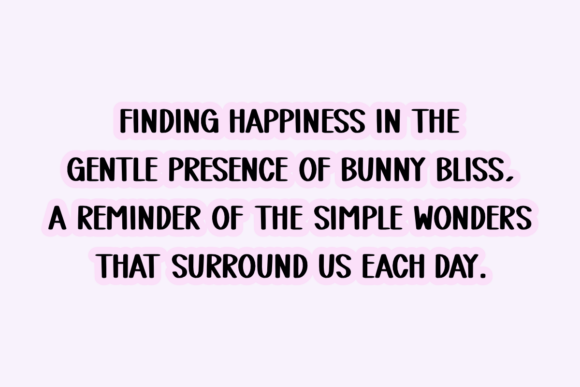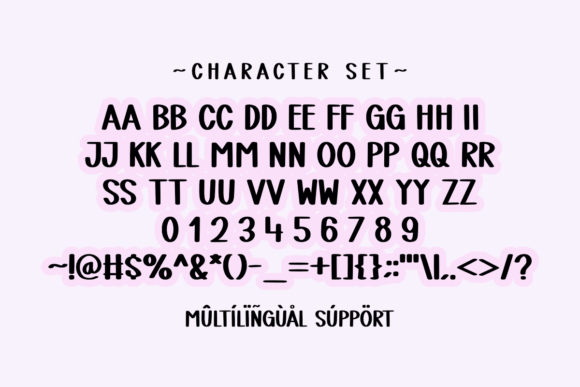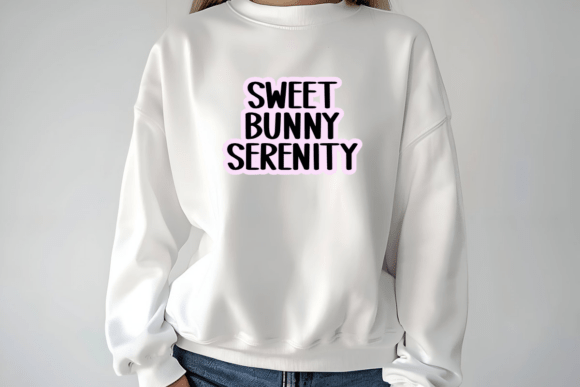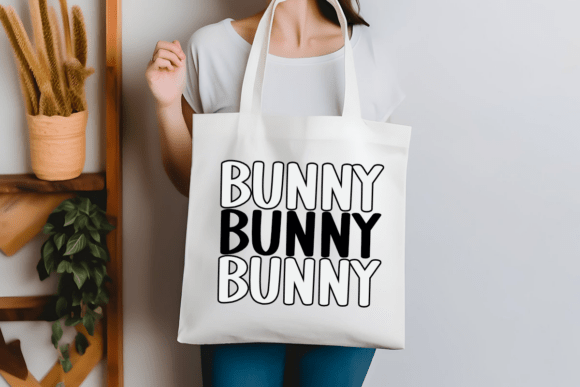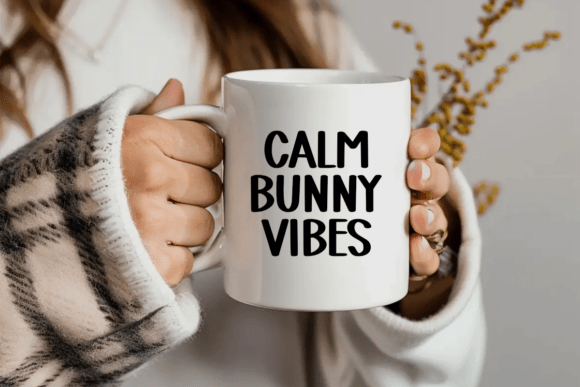
Introducing Bunny Bliss: The Playful Display Font You Need!
Have you ever been in the middle of a design project, and suddenly, you just can’t seem to find the right font? I know I have! 😩 It was a sunny Saturday afternoon, and I was working on a craft project for a client’s birthday party invitation. The design was almost complete, but something was missing – the perfect font to make it pop! That’s when I stumbled upon Bunny Bliss, a cute display font that instantly brought my design to life!
What is Bunny Bliss?
Bunny Bliss is a charming display font designed to add a playful and cheerful touch to your creative projects. Its fun and whimsical feel make it perfect for crafters and graphic designers looking to elevate their creations. With Bunny Bliss, you can add a personal touch to your designs, making them stand out from the crowd.
My Honest Review of Bunny Bliss
- ✨ Cute and Playful Design: Bunny Bliss has a unique and adorable design that will make your projects look fresh and youthful.
- ✅ Ease of Use: The font is easy to read and works well in various design contexts, from digital to print.
- 💫 OpenType Features: Bunny Bliss comes with a range of OpenType features, including glyphs and stylistic alternates, giving you plenty of creative options.
- 🤔 Limited Use Cases: As a display font, Bunny Bliss works best in headlines and titles. It might not be the best choice for body text or longer content.
- ⚠️ Legibility at Small Sizes: While the font is generally easy to read, it can become a bit tricky to decipher at very small sizes.
The Backstory of Bunny Bliss
Bunny Bliss was designed with one goal in mind: to bring joy and playfulness to your designs. The creator, a passionate typographer, wanted to craft a font that would make people smile. Inspired by the innocence and charm of childhood, Bunny Bliss was born – a font that’s sure to bring a touch of whimsy to your projects.
Q: What type of projects is Bunny Bliss best suited for?
A: Bunny Bliss is perfect for craft projects, party invitations, social media graphics, and any design that needs a playful touch.
Q: Does Bunny Bliss come with OpenType features?
A: Yes, Bunny Bliss includes a range of OpenType features, such as glyphs and stylistic alternates, to enhance your designs.
Q: Is Bunny Bliss easy to read?
A: Bunny Bliss is generally easy to read, especially at larger sizes. However, it might be less suitable for body text or smaller font sizes.
| Font Name | Bunny Bliss Font |
| Author | Funtype Co. |
Conclusion
Bunny Bliss is a delightful display font that’s sure to bring a smile to your face and a playful touch to your designs. Whether you’re a crafter, graphic designer, or creative hobbyist, this charming font is perfect for elevating your projects. With its ease of use, OpenType features, and whimsical design, Bunny Bliss is a fantastic addition to your font library. So why wait? Elevate your creations with Bunny Bliss today! 🎉